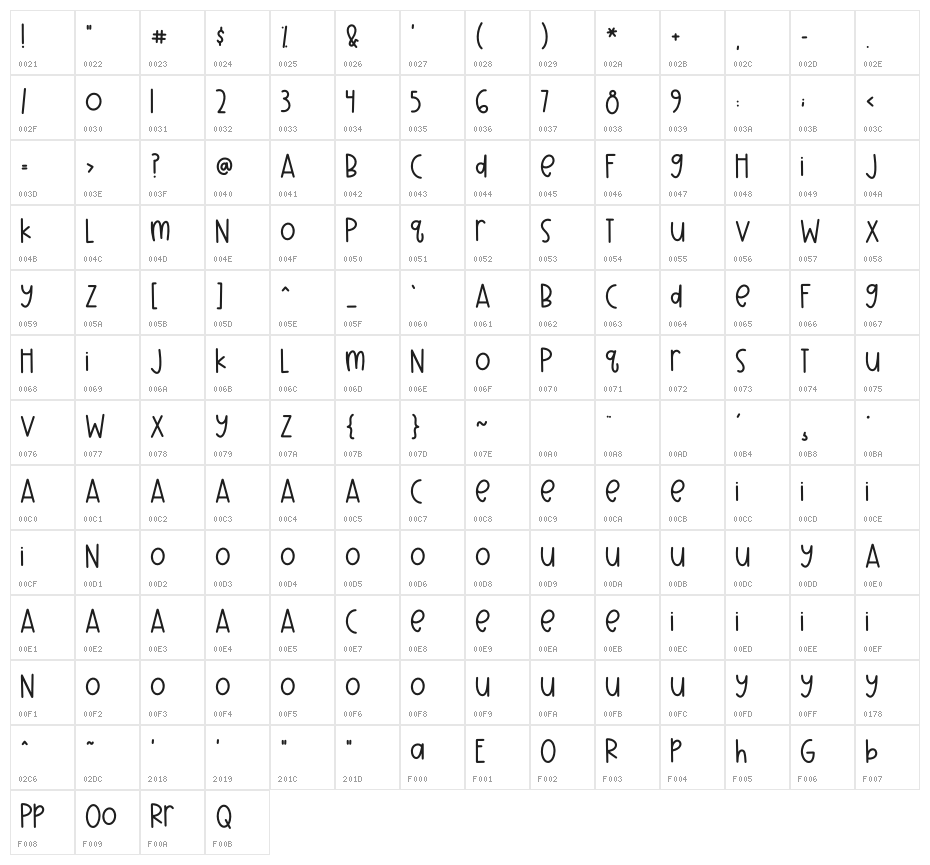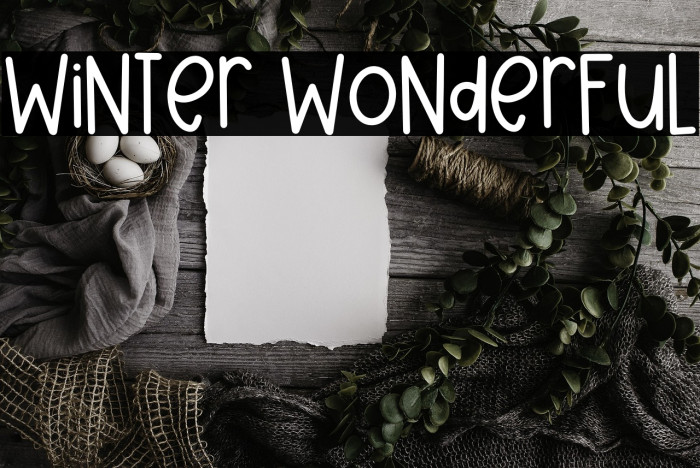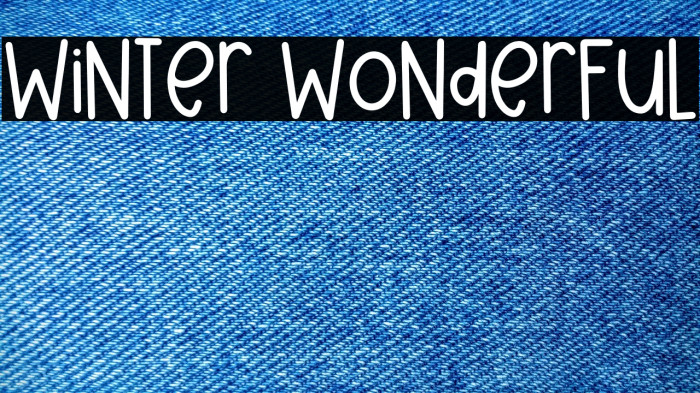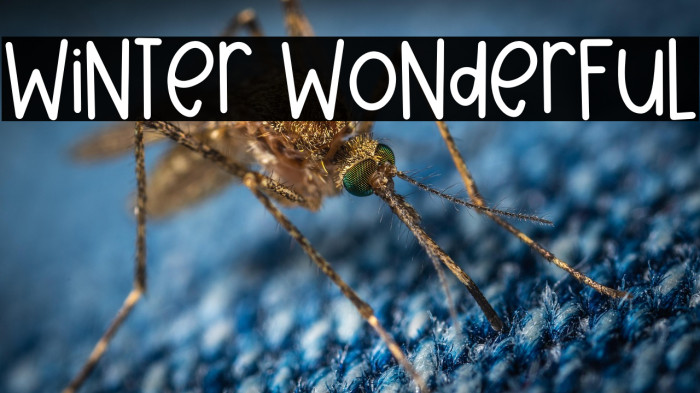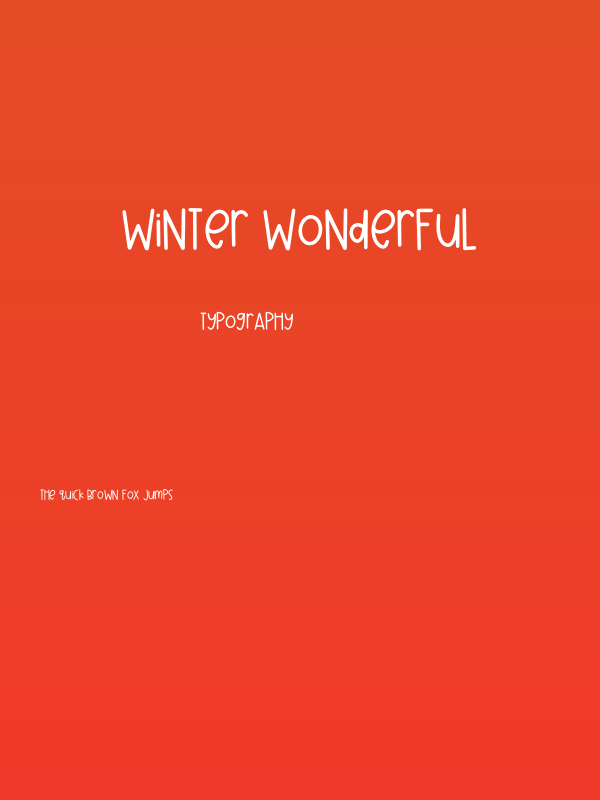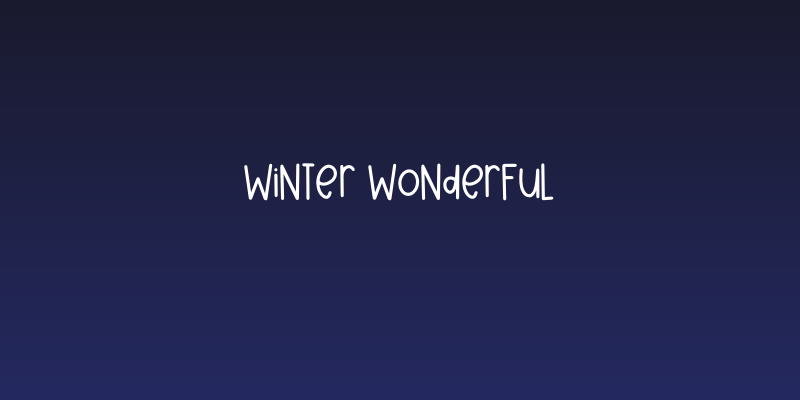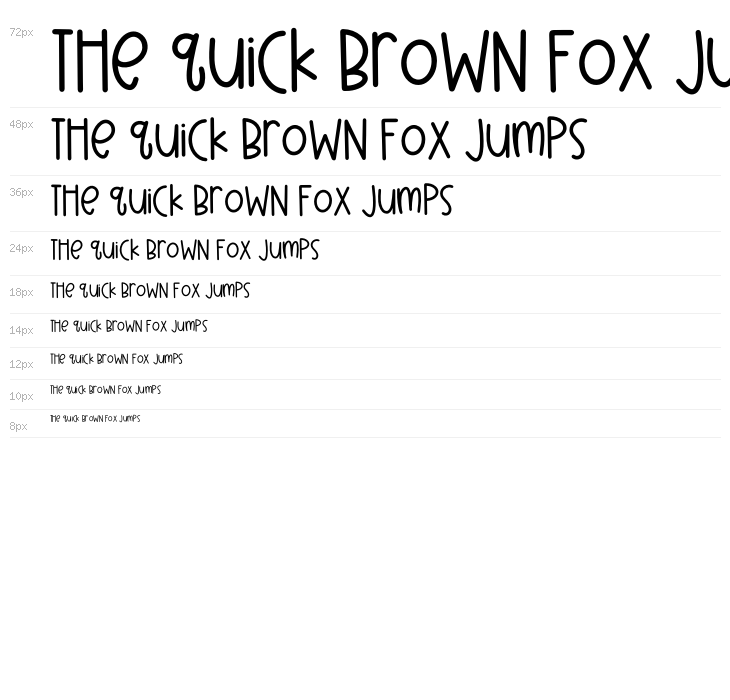
Winter Wonderful Font
Winter Wonderful Description
A playful, handwritten font with rounded edges and a casual style.
| Use Case | Headlines, Informal text |
| Proposed Projects | Greeting cards, children's books, casual invitations. |